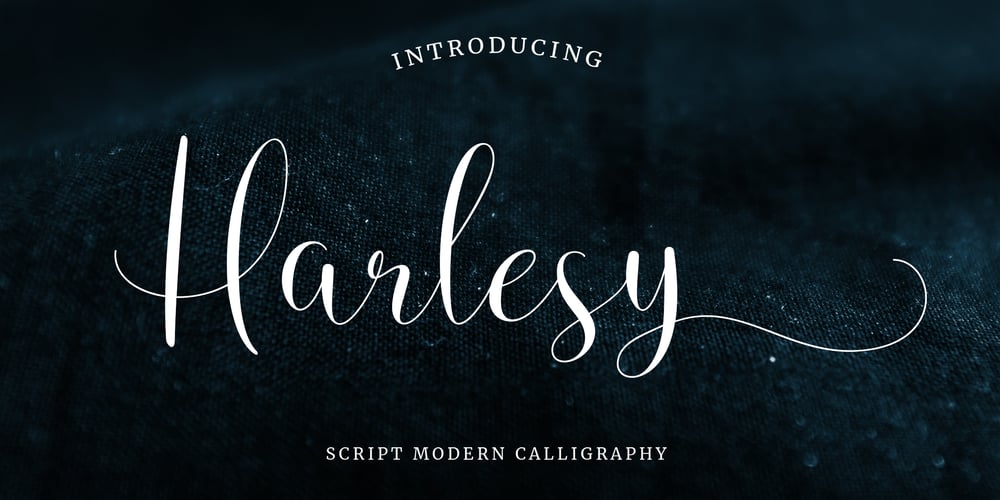
Harlesy Script Font Family was designed by Faisal Tanjung and published by sizimon. Harlesy Script contains 1 styles and family package options. Introducing our new product Harlesy Script Connecting script, designed to convey elegance and style. It is slender, feminine and friendly. Harlesy is perfect for fashion, e-commerce brands, trend blogs, or any business that wants to appear classy and chic.Harlesy Includes: Uppercase, lowercase, numeral, punctuation & Symbol Stylistic alternates PUA Encoded Characters Fully accessible without additional design software. Multilingual Language To access the alternate glyphs, you need a program that supports OpenType features such as Adobe Illustrator CS, Adobe Photoshop CC, Adobe Indesign and Corel Draw.If you have any question please do not hesitate to contact me. Thank You!